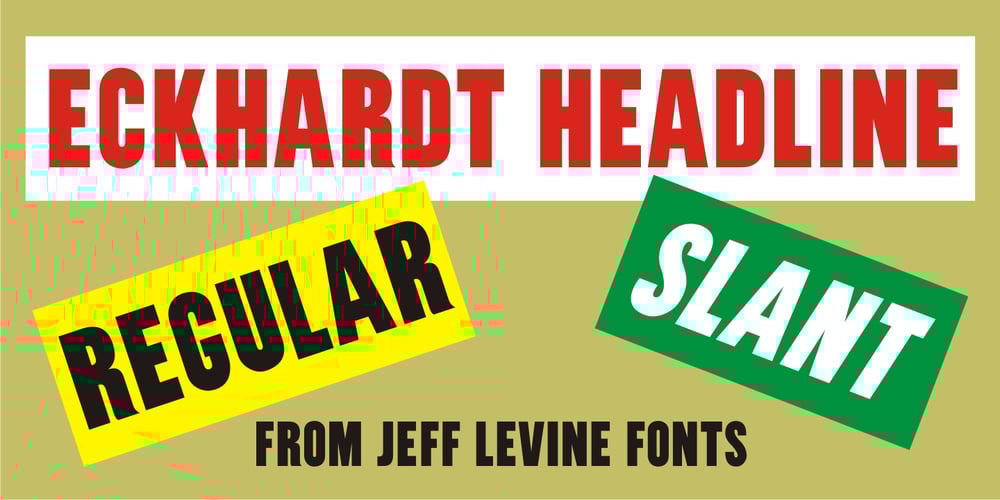
Eckhardt Headline JNL Font Family was designed by Jeff Levine and published by Jeff Levine. Eckhardt Headline JNL contains 2 styles and family package options. Eckhardt Headline JNL is a bold, condensed sans serif font. This is part of a series of typefaces popular with the sign trade. Named in honor of the late Albert Eckhardt, Jr. – a talented sign writer and a good friend of type designer Jeff Levine – it is available in both regular and “slant” for extra emphasis.